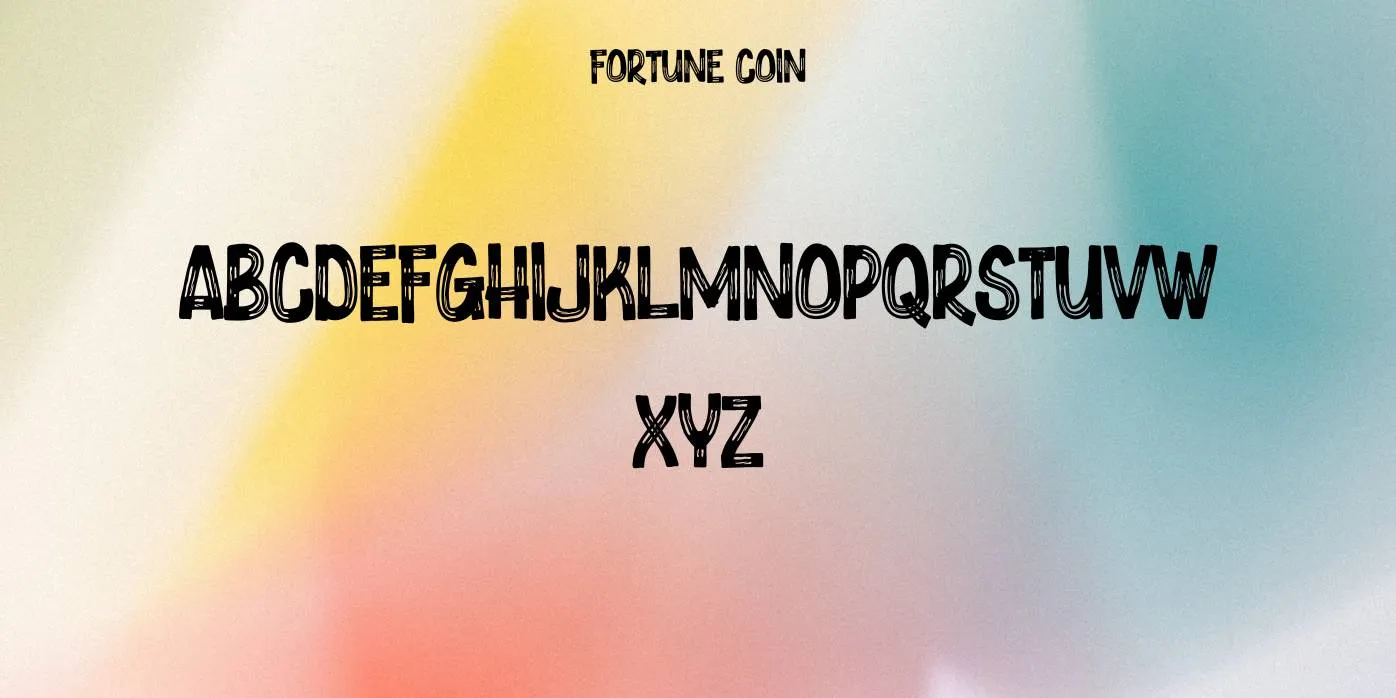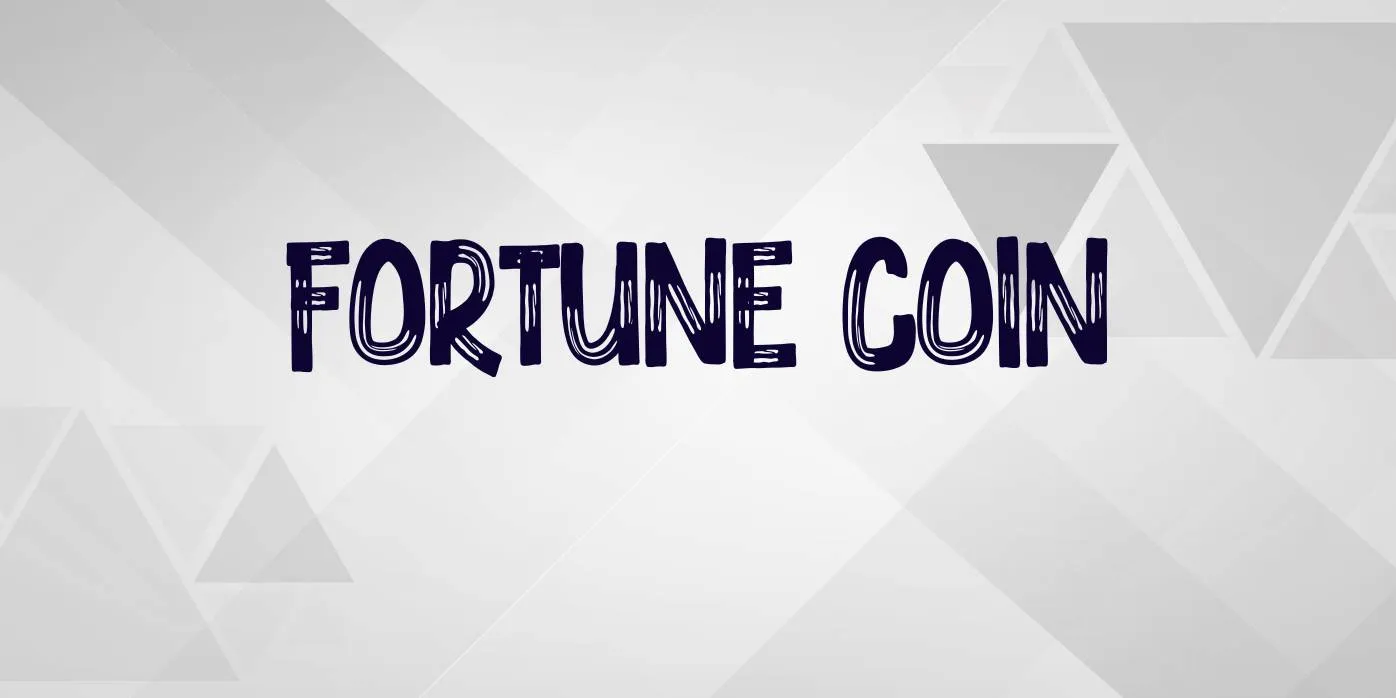
Fortune Coin Font
Fortune Coin Font was designed by Anang F & Malik Wsn and published by Gassstype Studios. It contains 395 characters, 363 glyphs, and 1000 units per Em. The weight of the font is semi-bold and its width is medium(normal). Unicode supported 2.0 and BMP only.
Languages supported Latin and symbols. It is a very famous font all over the world. It supports many international languages as well. An online generator tool also supports fonts to make amazing designs online without downloading the font.
It has many amazing features like characters, symbols, small letters, capital letters, punctuations, and special characters. This fancy font is used to design many cartoons or animated movies. It has very funky features which give a very attractive look to the kids and others. To make themed decorations for kids’ birthday parties, room decorations for the kids, and other events you can use this font as well.
It is good for both print and digital media. To make many different websites and graphic designs you can also use Adobe Photoshop, Canva, and CSS for more attractive designs. To make eye-catching logos, titles, banners, posters, flyers, and brochures it is also a good choice for use. For making storybook covers, scrapbooks, and other children-related items.
Kurdish, Kurdish (Kurmanji), Tahitian, and Khakas. FAQs! Who is the designer of Fortune Coin Font? This amazing font is designed by Anang F & Malik Wsn and manufactured by Gassstype Studios.